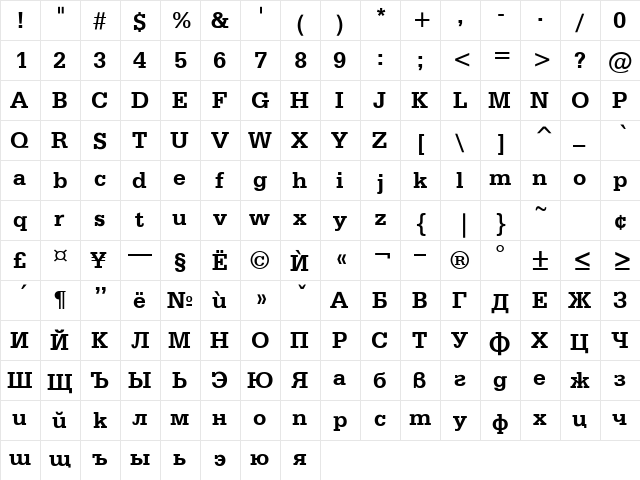
SiriusB Bold
Design Context for SiriusB Typeface
SiriusB is a composed and adaptable typeface that performs quietly and consistently across a wide range of design contexts. Its bold stroke weight gives it real presence on the page.
Pro Tip: Pair SiriusB with a font of contrasting weight or personality to build a more expressive typographic hierarchy.